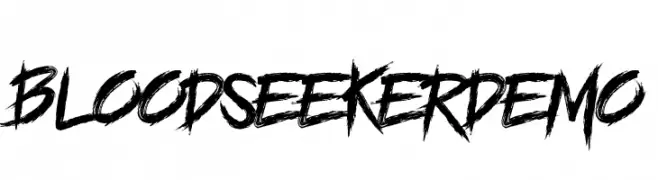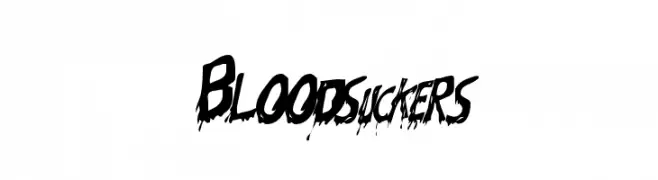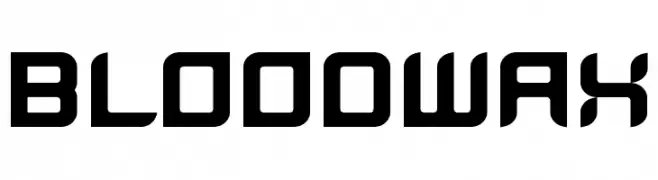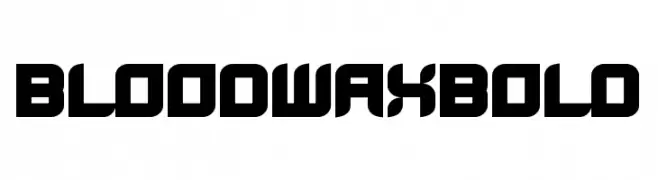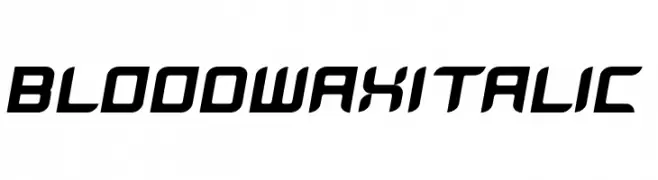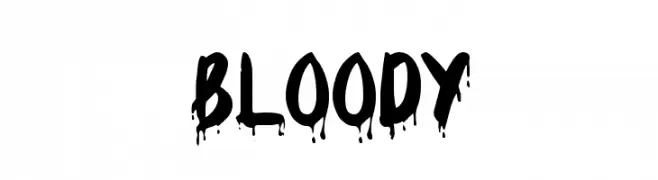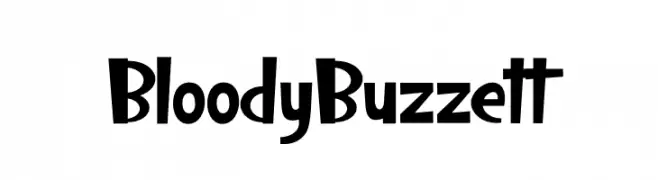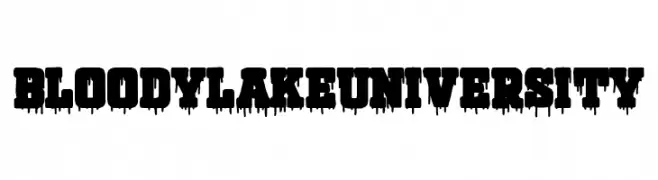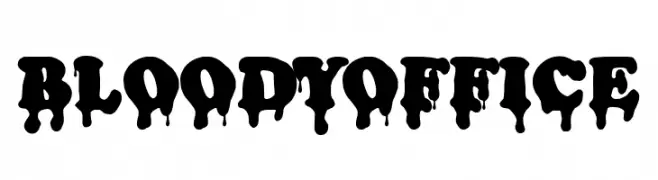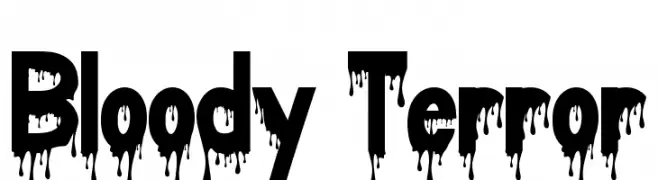
A bold, horror-themed font with a dripping effect.
A bold, jagged font with a horror-themed, dripping effect.
A bold, jagged font with dynamic, brush-like strokes.
A dripping, horror-themed font with a bold and eerie style.
Casual handwritten script with rounded, playful forms.
A bold, brush-style font with dynamic and expressive strokes.
A bold, horror-themed font with dripping, jagged letters.
A dripping, horror-themed font with jagged, melting characters.
A bold, dynamic script font with fluid, energetic strokes and a hand-drawn appearance.
A thorny, decorative font with sharp, barbed wire-like extensions.
A bold, dripping font with a horror or icy theme.
A bold, dripping horror-themed display font.
A bold, dripping font with a horror-themed aesthetic.
A bold, dripping font with a spooky, horror-themed design.
A bold, dripping display font ideal for horror or Halloween themes.
A distressed, grungy script font with an energetic, handwritten style.
A bold, fragmented font with a shattered, edgy appearance.
A bold, dripping font perfect for horror themes.
A bold, dripping font ideal for horror-themed designs.
A bold, dripping font ideal for horror themes and Halloween designs.
A bold, dripping font with a horror or winter theme.
A dramatic, brush-style font with expressive, hand-painted strokes.
A bold, horror-themed font with a dripping, melting effect.
A bold, horror-themed font with a dripping effect for a spooky aesthetic.
A fluid and elegant script font with a dynamic cursive style.
A bold, geometric font with playful and quirky character shapes.
A whimsical, handwritten font with thin, elongated strokes and playful letterforms.
An ornate, decorative font with floral embellishments.